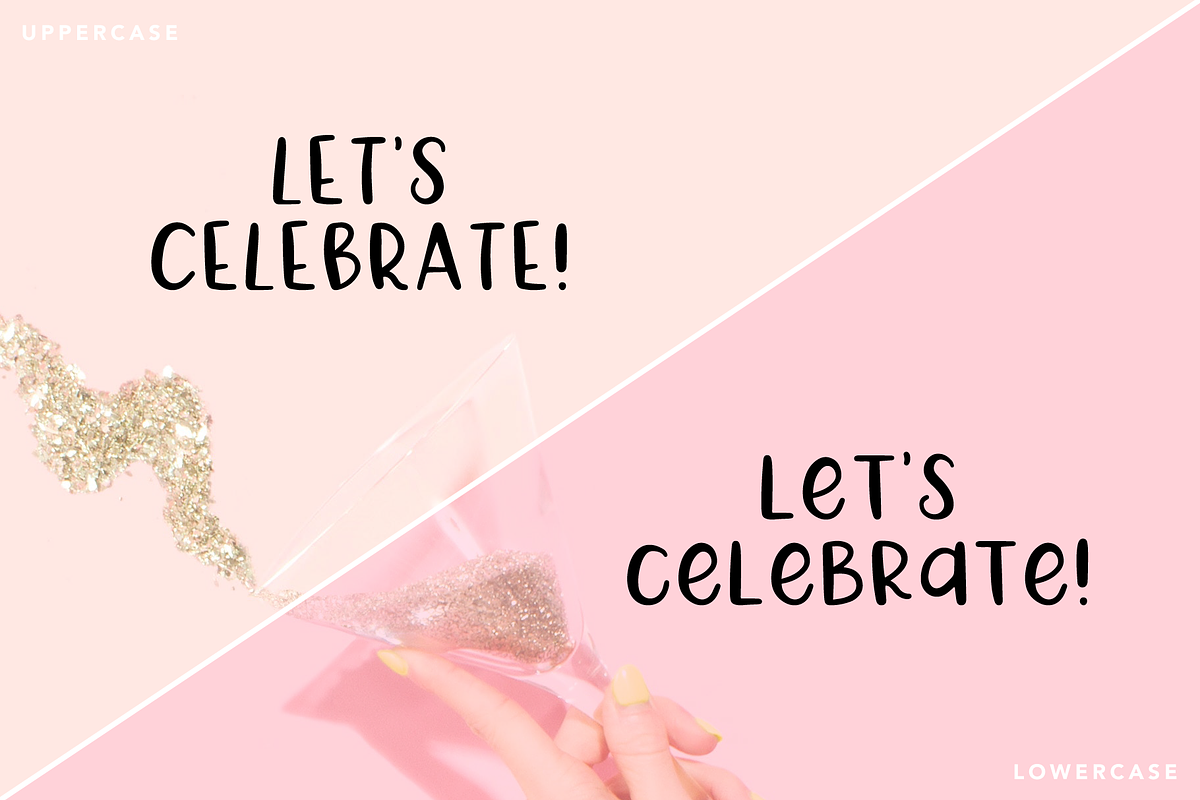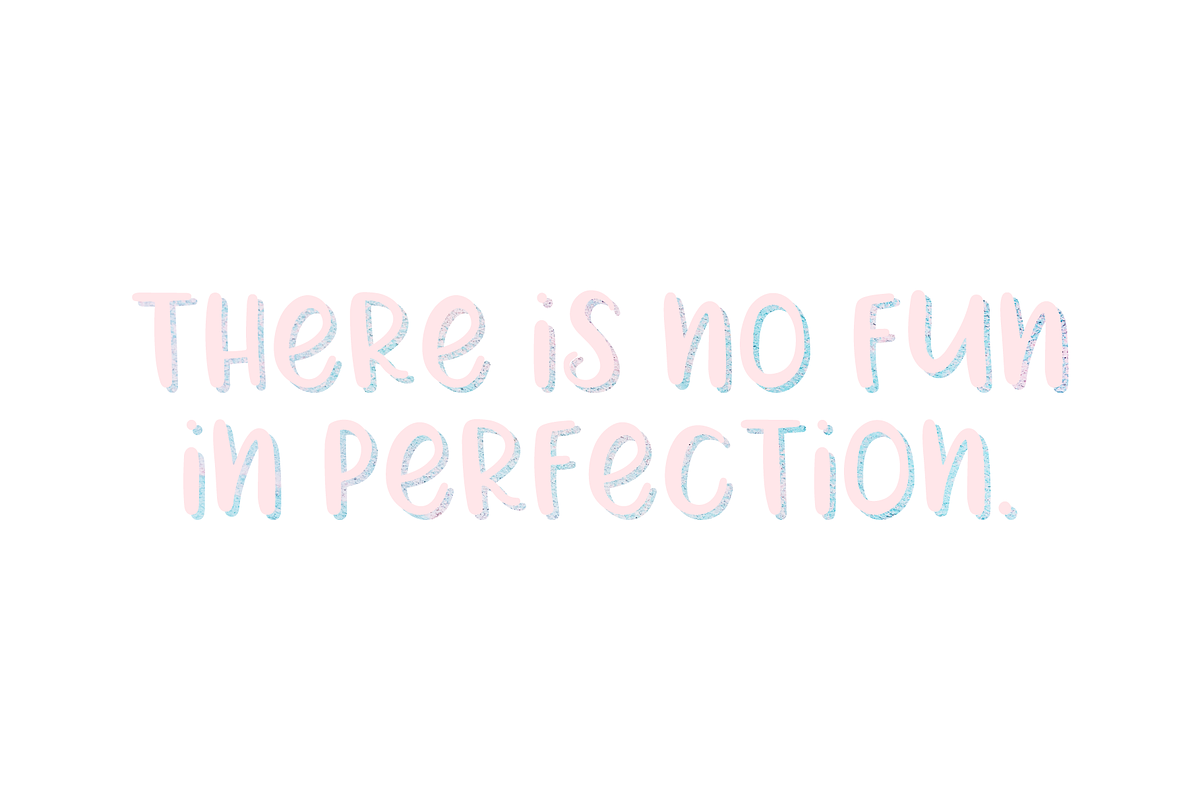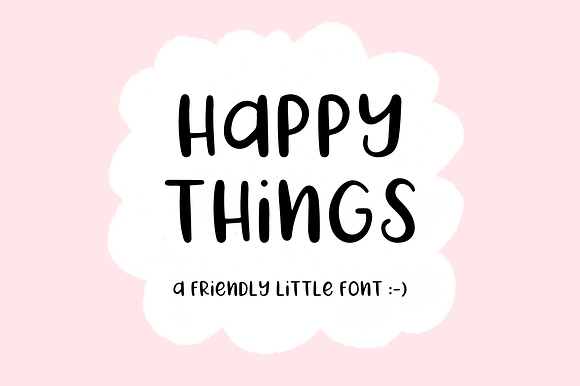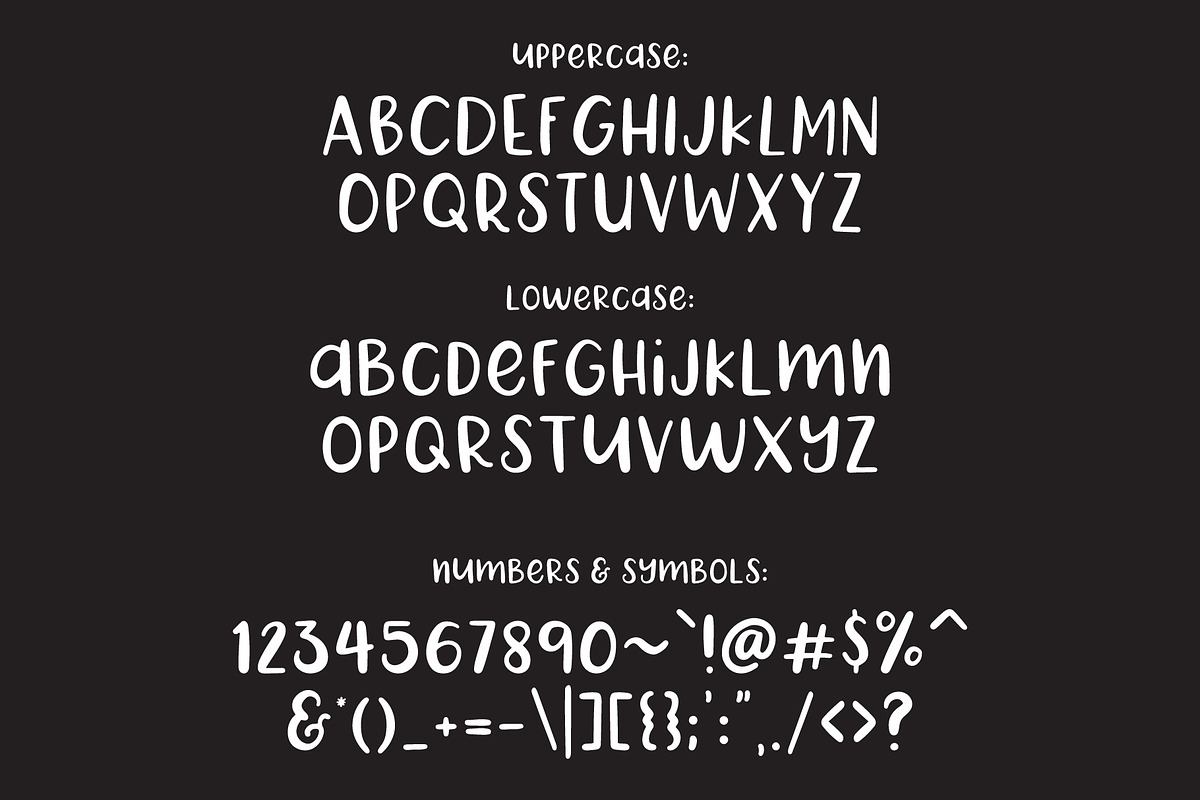
Happy Things | A Hand Drawn Font
Introducing Happy Things, a fun and friendly little font.
numbers and special characters.
Happy Things | A Hand Drawn Font by Bold Leap Creative fits naturally into Branding, posters, packaging, typography.